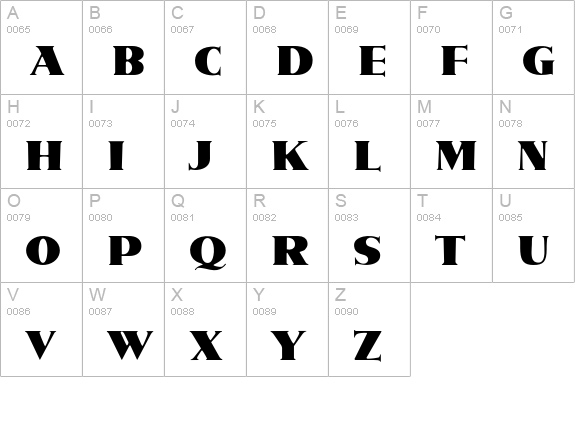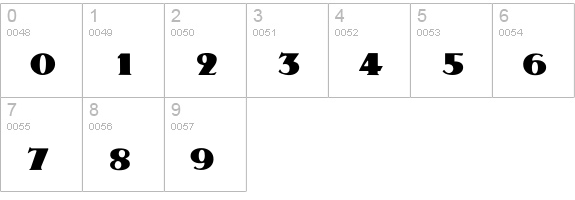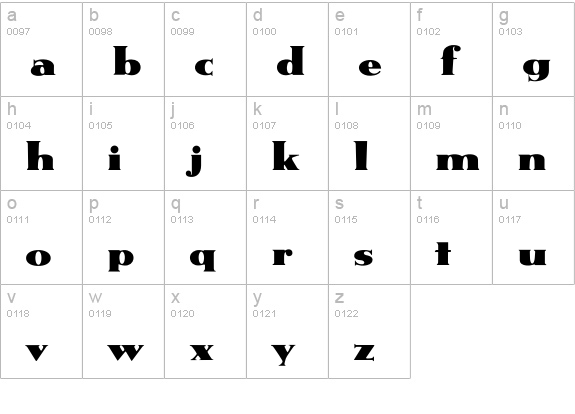
Metropolis Font Details
Metropolis font is a sleek and modern typeface that exudes sophistication and style. Its clean lines and geometric shapes make it perfect for a wide range of design projects, from branding to web design. The bold and elegant appearance of Metropolis font commands attention and lends a touch of luxury to any layout. What sets Metropolis font apart is not only its stunning design but also the fact that it is available for free download. Yes, you read that right - this high-quality font can be yours at no cost! Simply head over to FontsMarket.com to grab your copy and start incorporating Metropolis font into your creative endeavors today. With its versatility and timeless appeal, Metropolis font is sure to become a staple in your font collection.